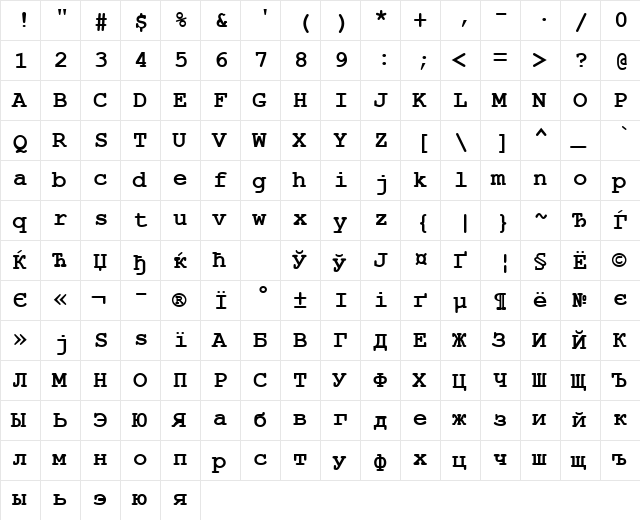
CourtierC Bold
Design Context for CourtierC Typeface
CourtierC is a composed and adaptable typeface that performs quietly and consistently across a wide range of design contexts. Its bold stroke weight gives it real presence on the page.